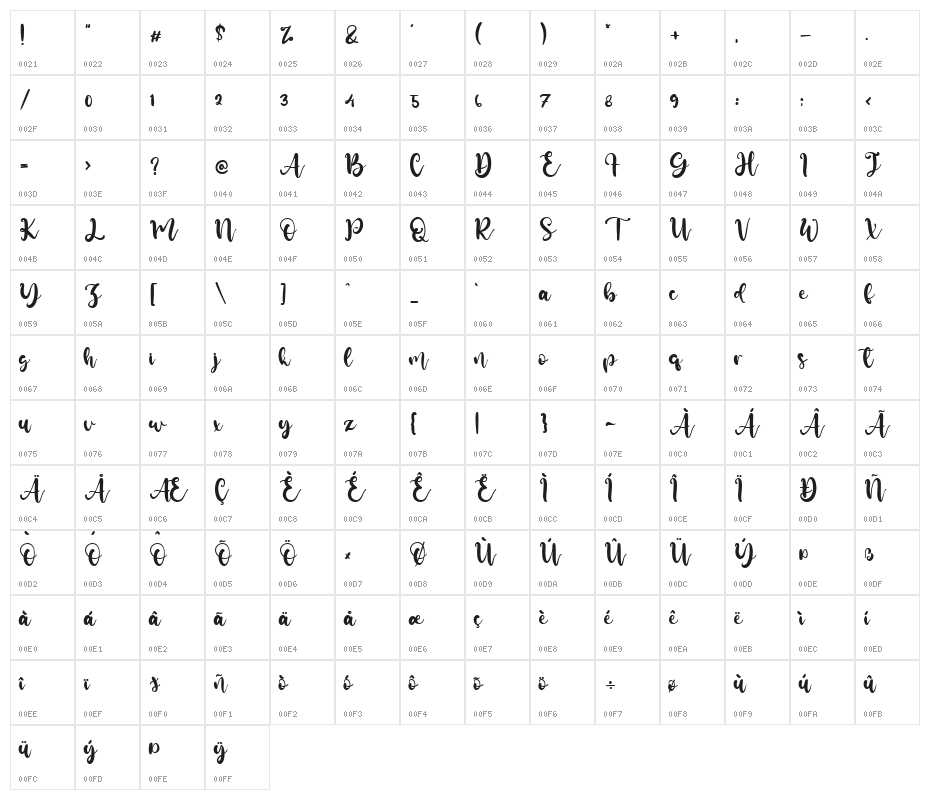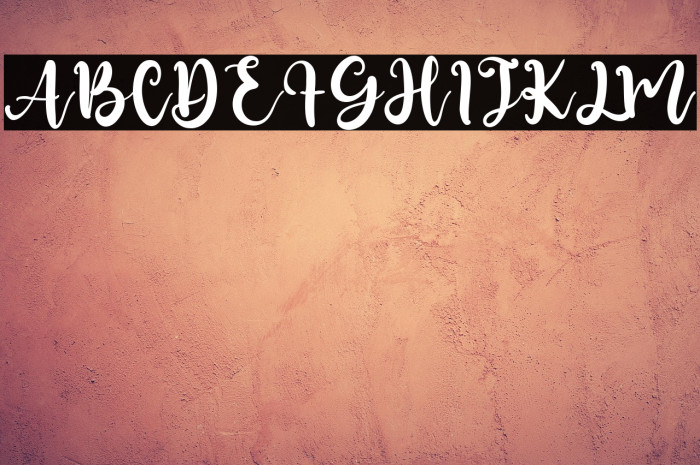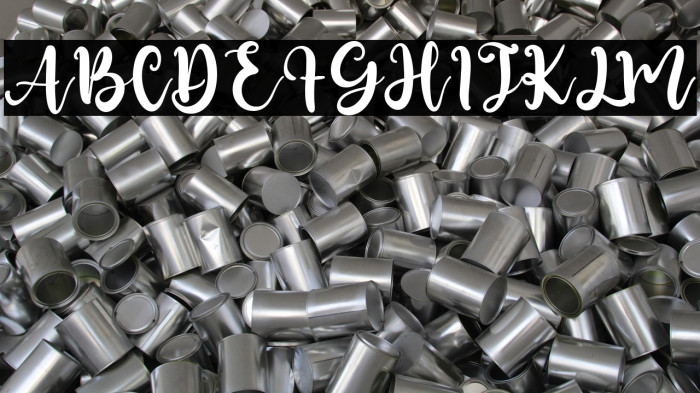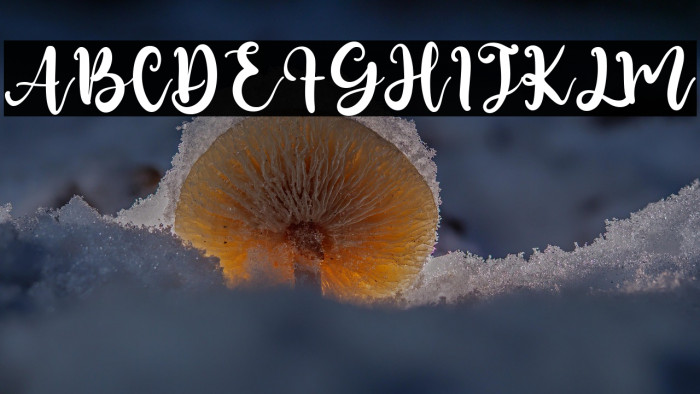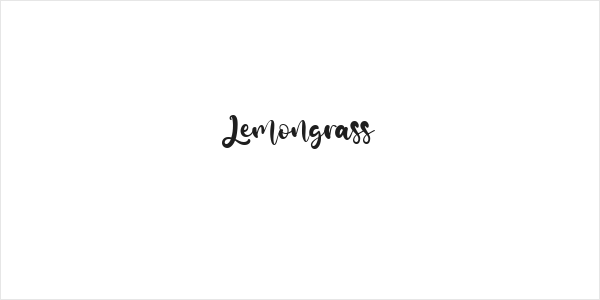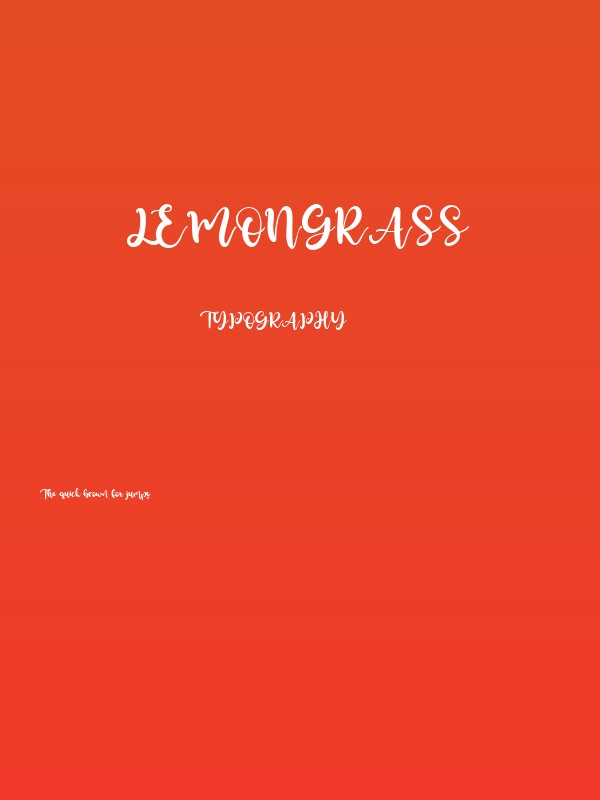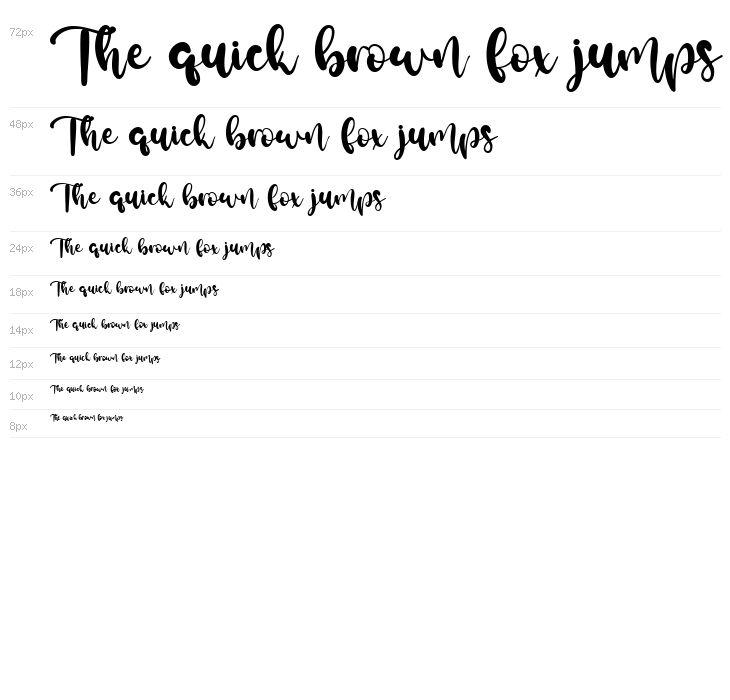
Lemongrass Font
Lemongrass Description
This font features a playful and elegant script style, characterized by its flowing, cursive letters that mimic natural handwriting. The uppercase letters are bold and expressive, with sweeping curves and loops that add a sense of movement and grace. The lowercase letters maintain a consistent style, with smooth connections between characters, enhancing the fluidity of the text. Numbers and special characters are designed to complement the overall aesthetic, maintaining the same whimsical and artistic flair. This font is perfect for adding a personal touch to any project, offering a balance of readability and decorative appeal.